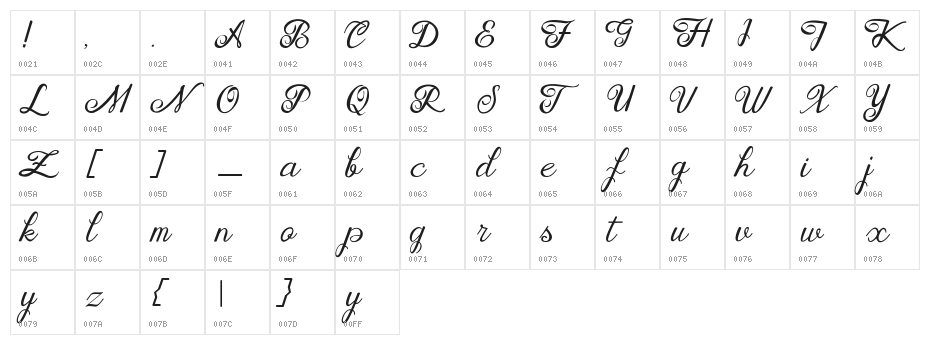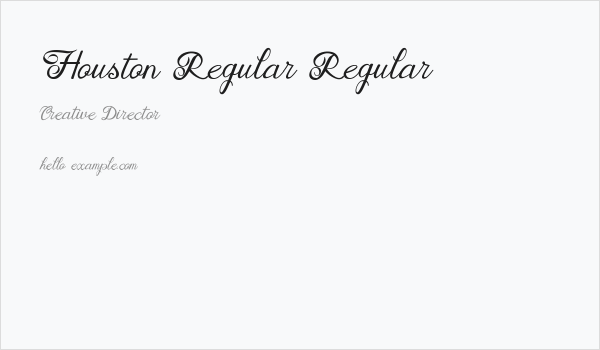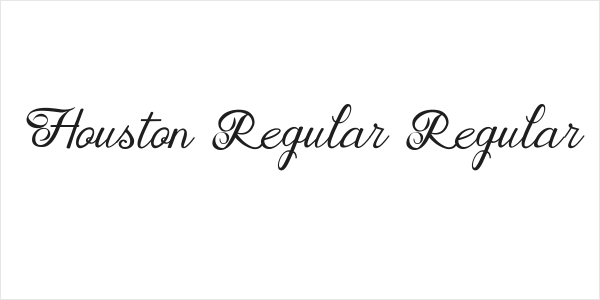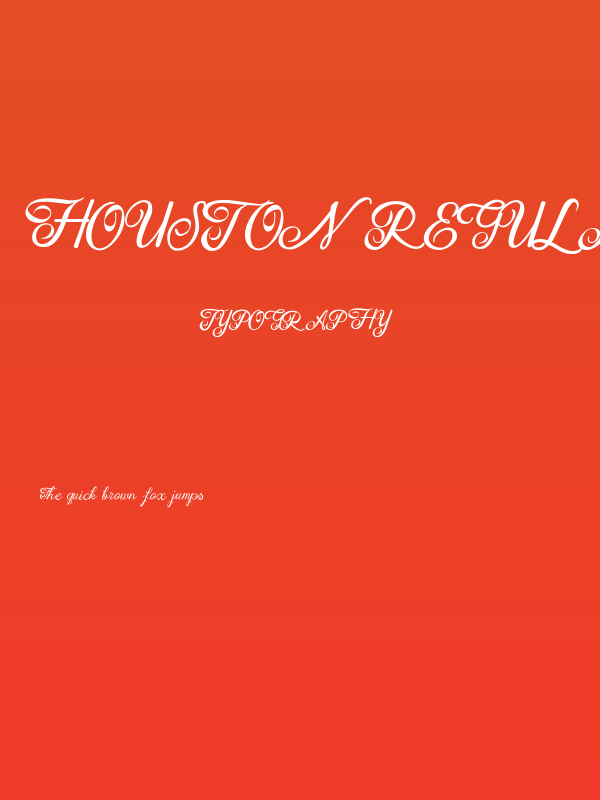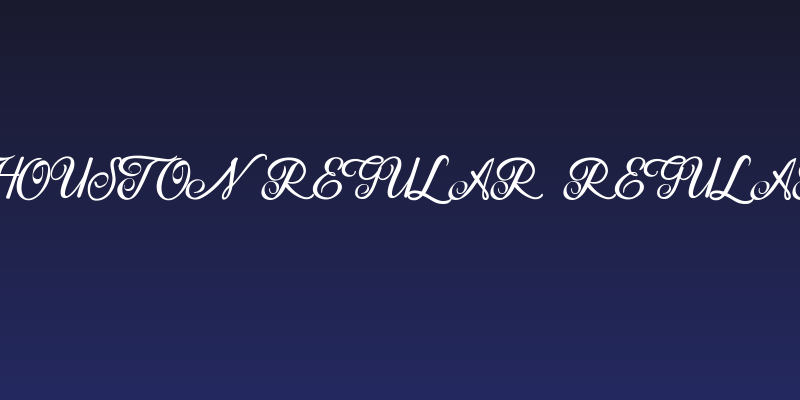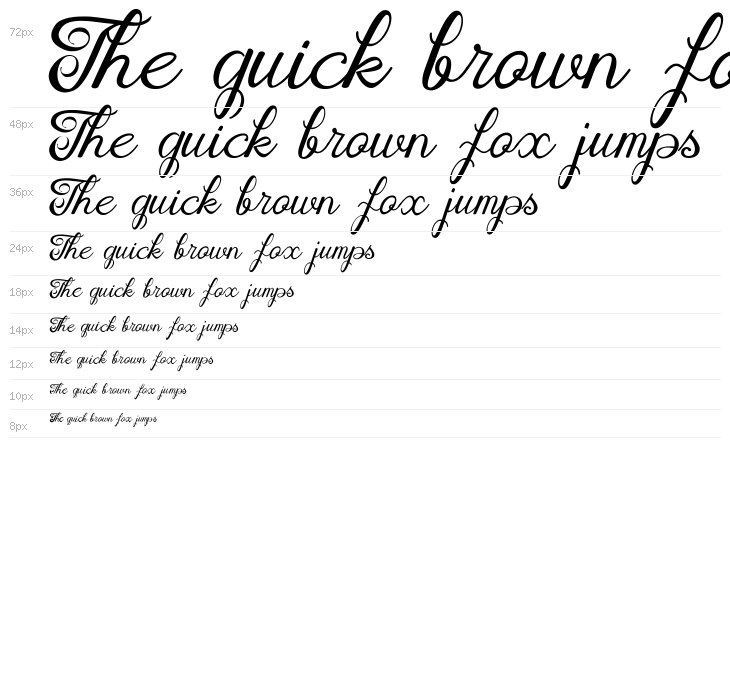
Houston Regular Font
Houston Regular Description
This font is an elegant and flowing script typeface that exudes a sense of sophistication and grace. The characters are intricately designed with smooth, cursive strokes that connect seamlessly, creating a harmonious and fluid appearance. The uppercase letters are ornate, with elaborate loops and swirls that add a decorative touch. The lowercase letters maintain a consistent style, complementing the uppercase with their own subtle flourishes. The numbers and special characters are crafted with the same attention to detail, ensuring a cohesive look across all elements. This font is perfect for projects that require a touch of elegance and refinement.